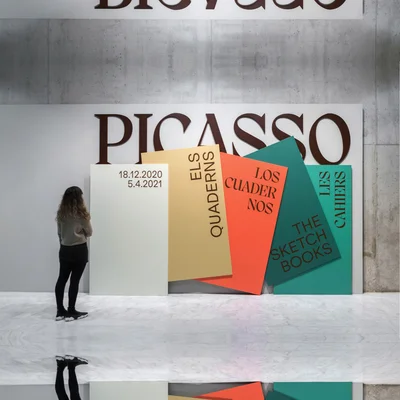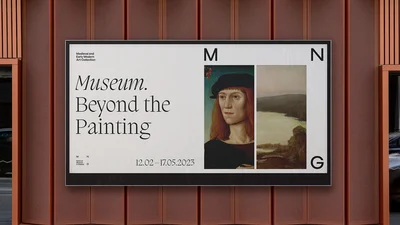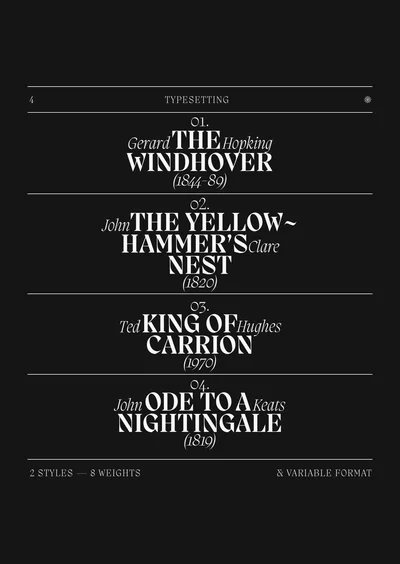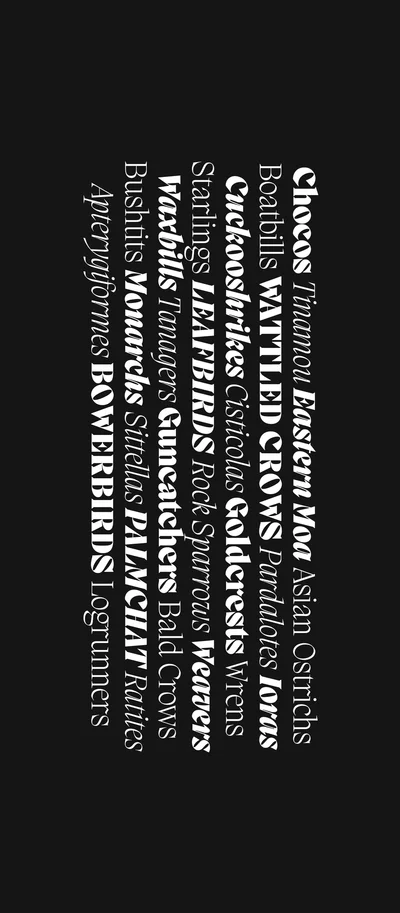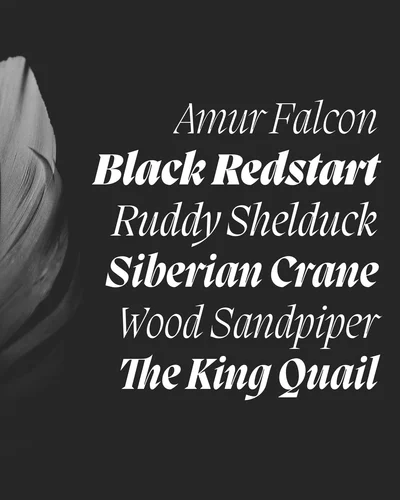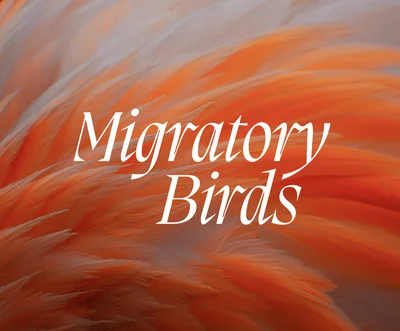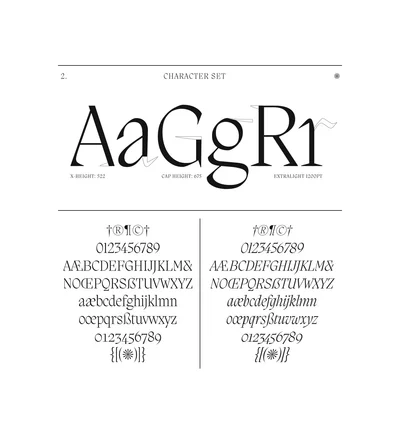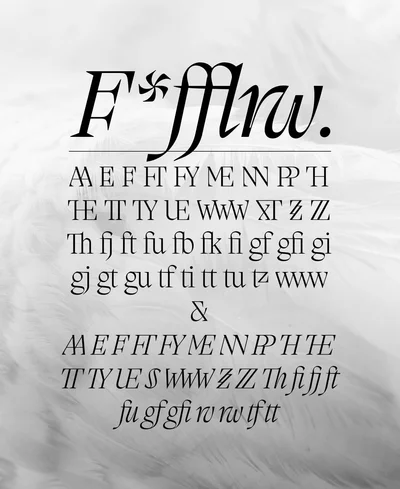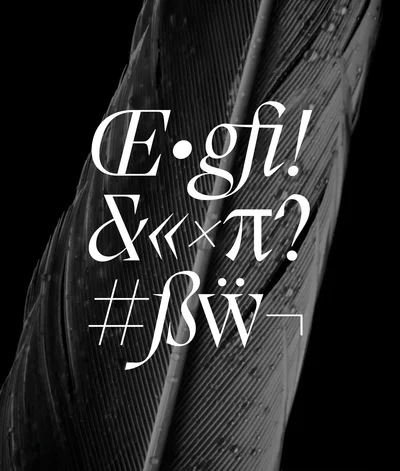
Migra vs Reckless
Migra and Reckless are both serif typefaces sharing a display foundation. Where Migra leans expressive, Reckless brings high contrast, bold. Compare which suits your Display project.
Migra
Expressive
Display
Reckless
High Contrast
Bold
DisplayEditorial
Feature Migra Reckless
Type Premium Premium
Classification serif serif
Variable Font No No
Weights Multiple Multiple
Italics Yes Yes
Recommended: Migra
• expressive design character
• Suited for Creative and Experimental
Consider: Reckless
• high contrast, bold design character
• Suited for Headlines and Fashion